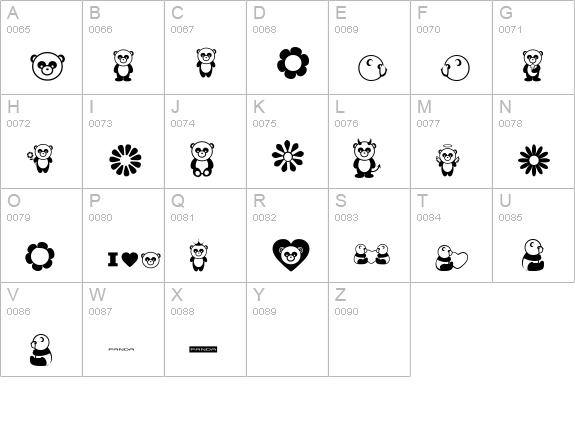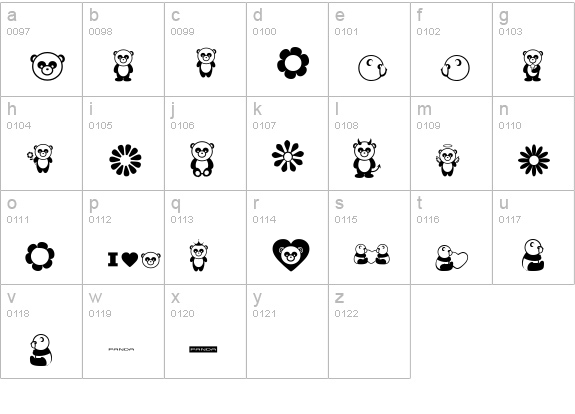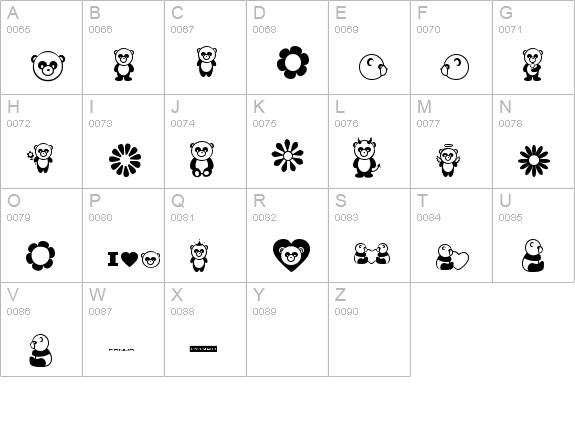
Pandamonium BV Font Details
Introducing Pandamonium BV, a whimsical and playful font that will add a touch of charm to any design project. This font is inspired by the adorable and lovable pandas, combining their cuteness with a modern and stylish twist. With its unique and eye-catching letterforms, Pandamonium BV is perfect for a wide range of creative purposes, from branding and logos to invitations and social media graphics. Its rounded shapes and soft curves exude a sense of friendliness and approachability, making it ideal for projects aimed at capturing attention and creating a warm and inviting atmosphere. But what truly sets Pandamonium BV apart is the fact that it is free. Yes, you read that right! This incredible font is freely available to download at FontsMarket.com. Say goodbye to expensive licensing fees and complicated usage restrictions, because Pandamonium BV is here to make your design dreams come true without breaking the bank. So why wait? Embrace the charm and playfulness of Pandamonium BV and let your creativity run wild. Whether you're a professional designer or a DIY enthusiast, this font is sure to become a valuable addition to your font collection. Download Pandamonium BV today and discover the joy of creating stunning designs with ease.